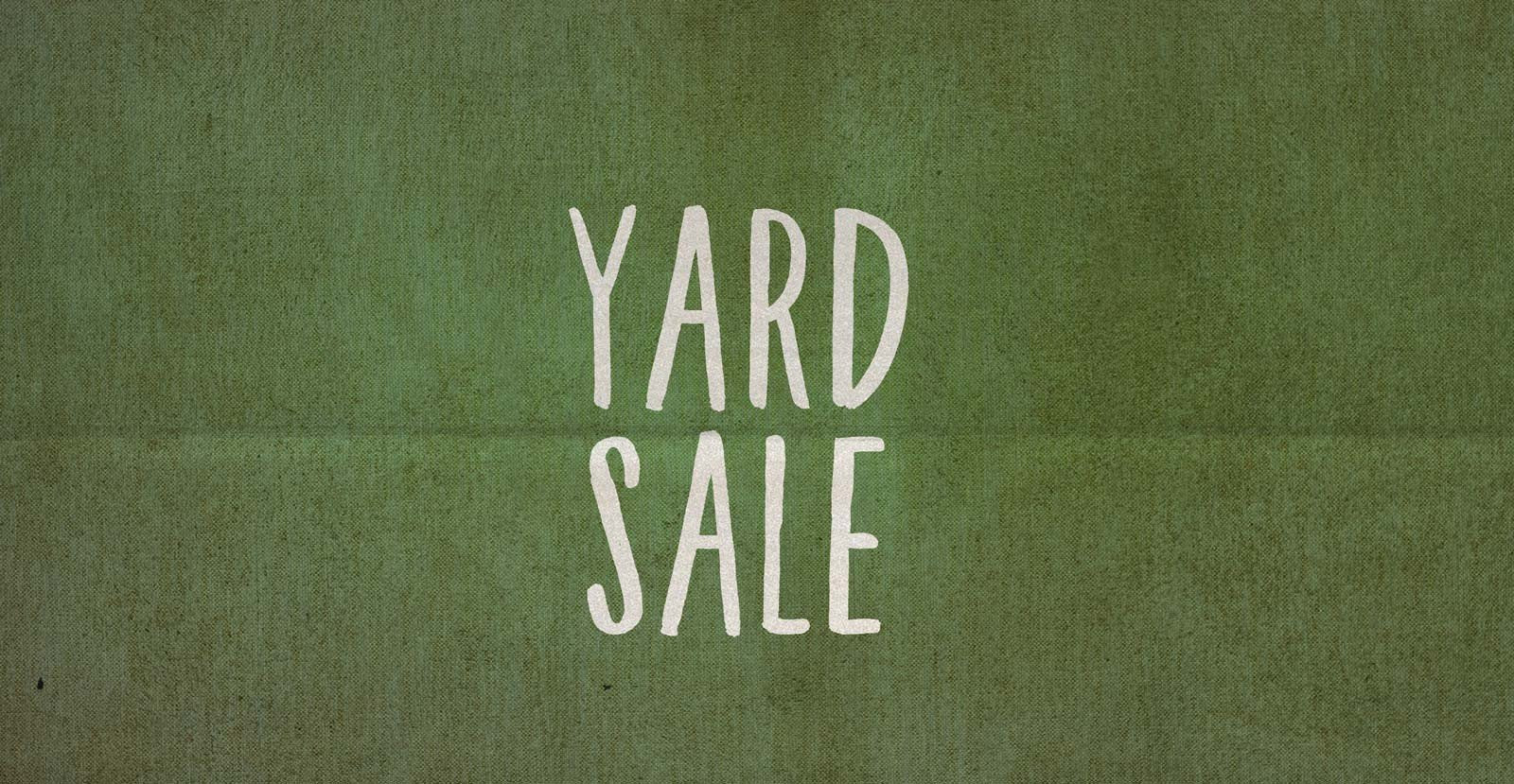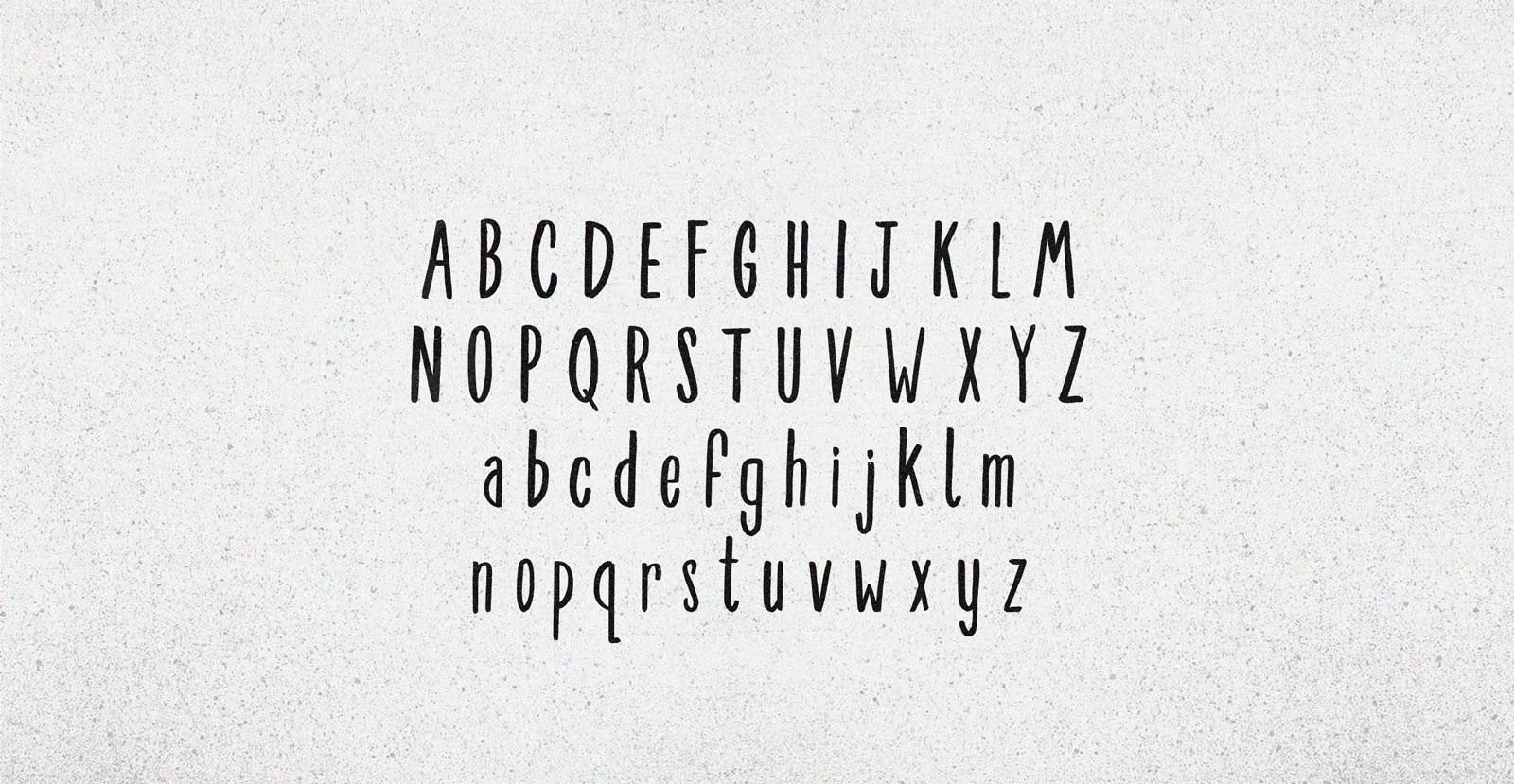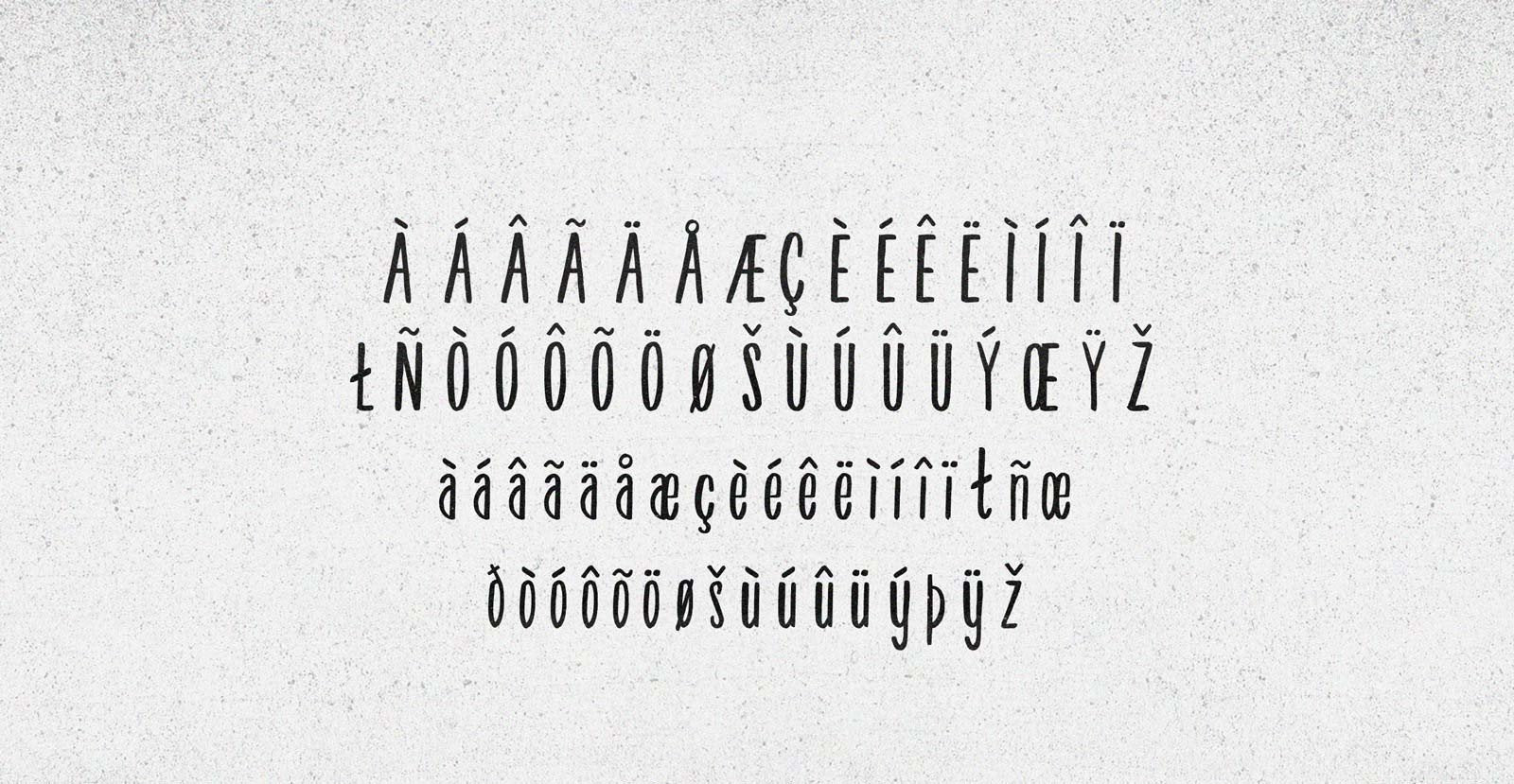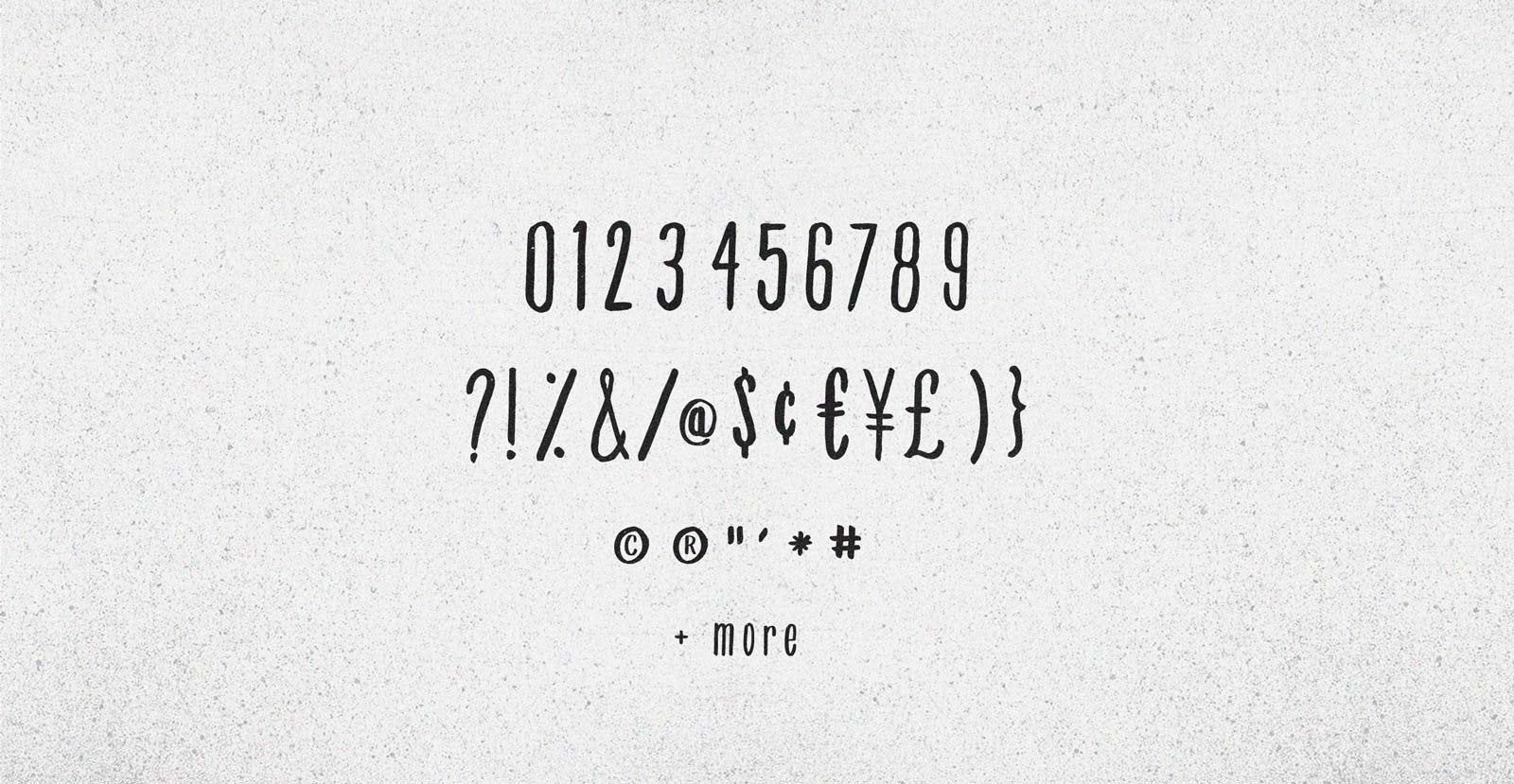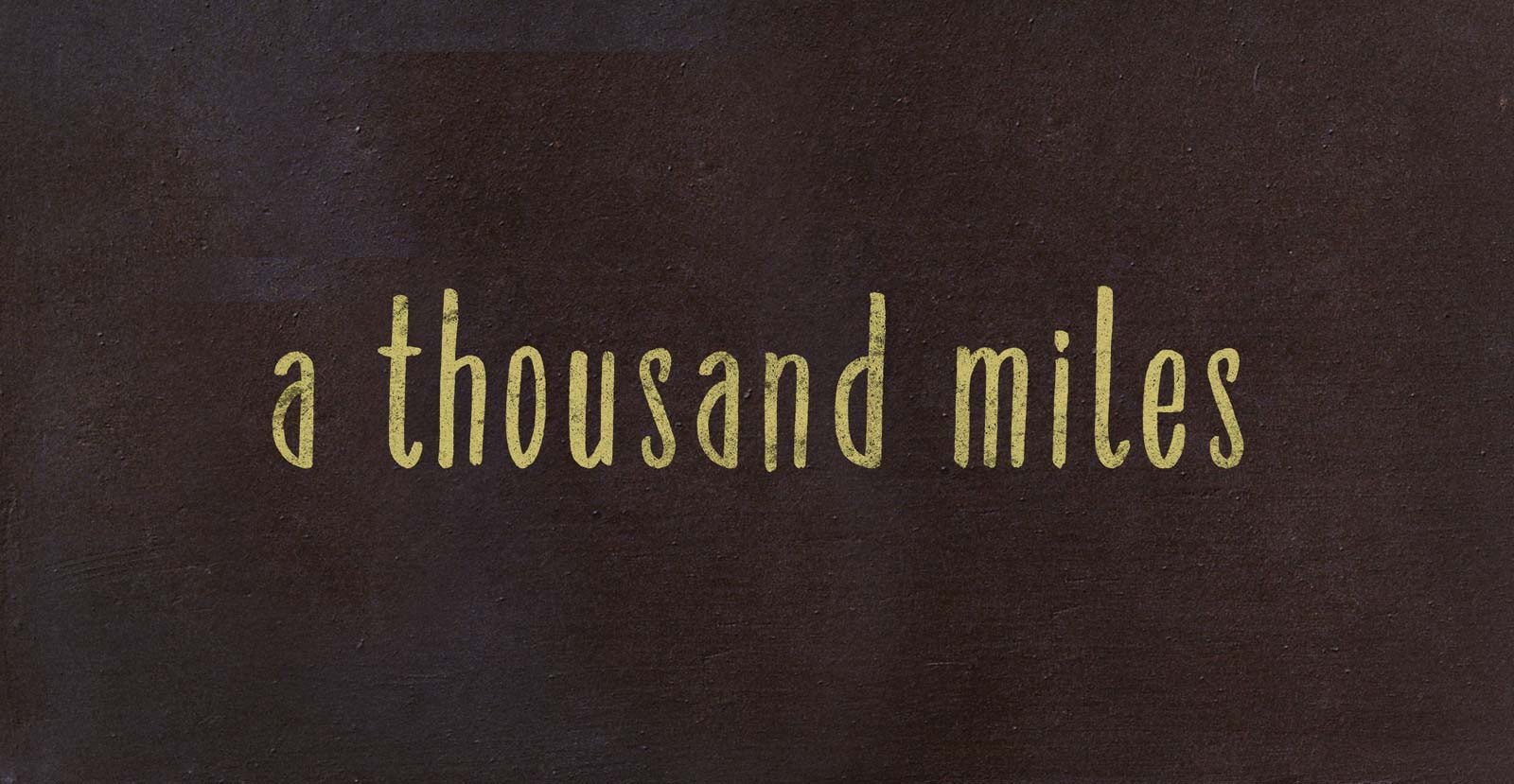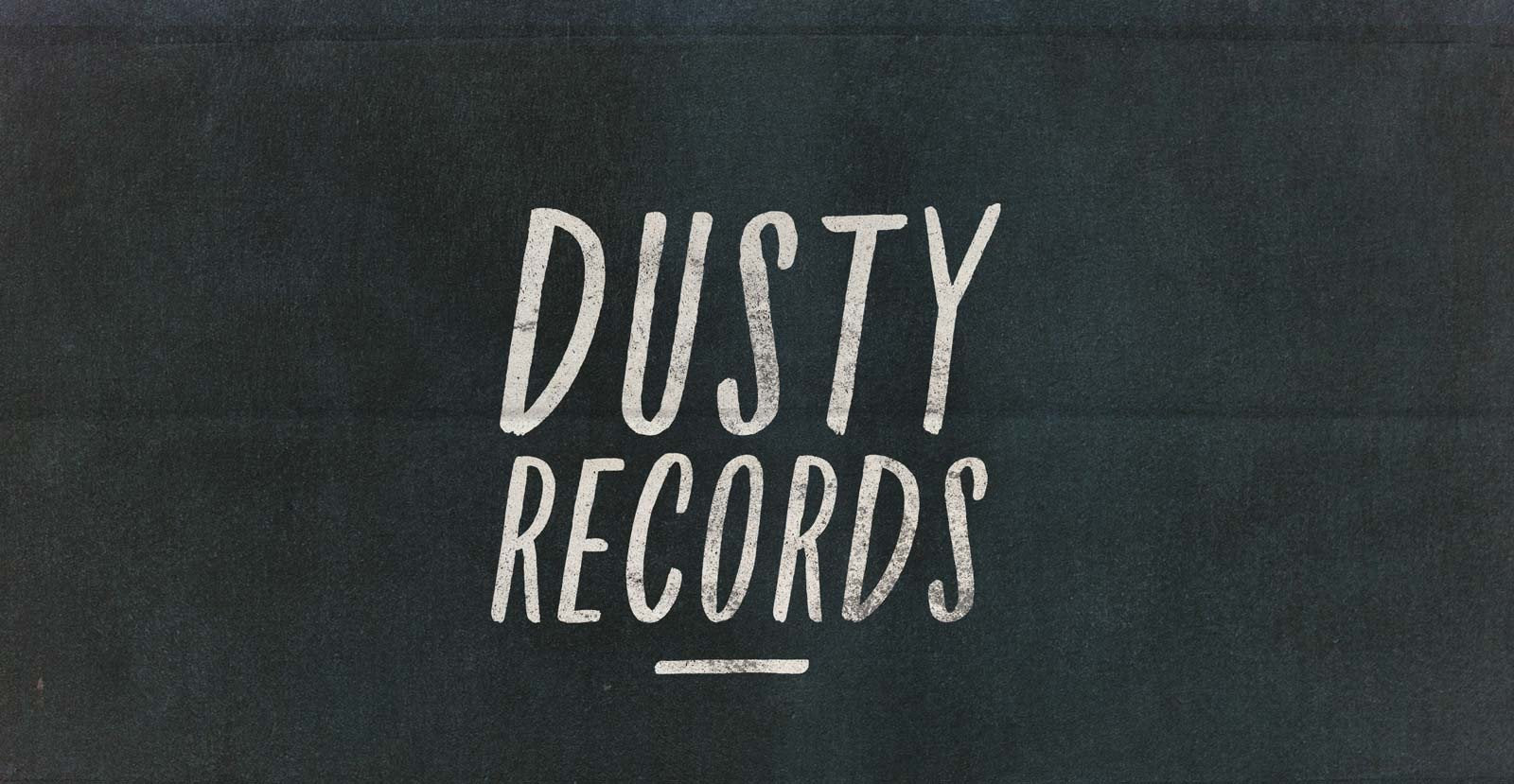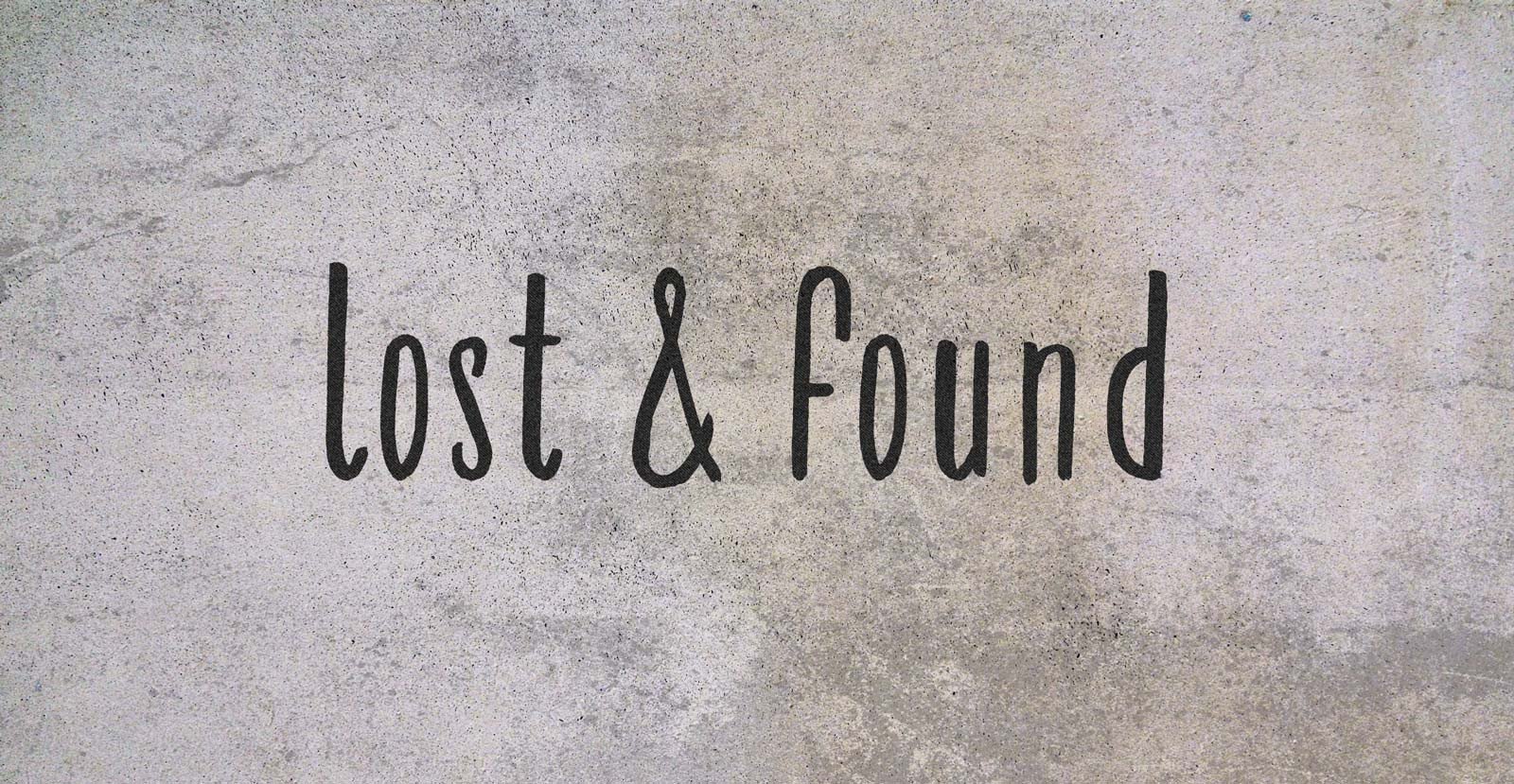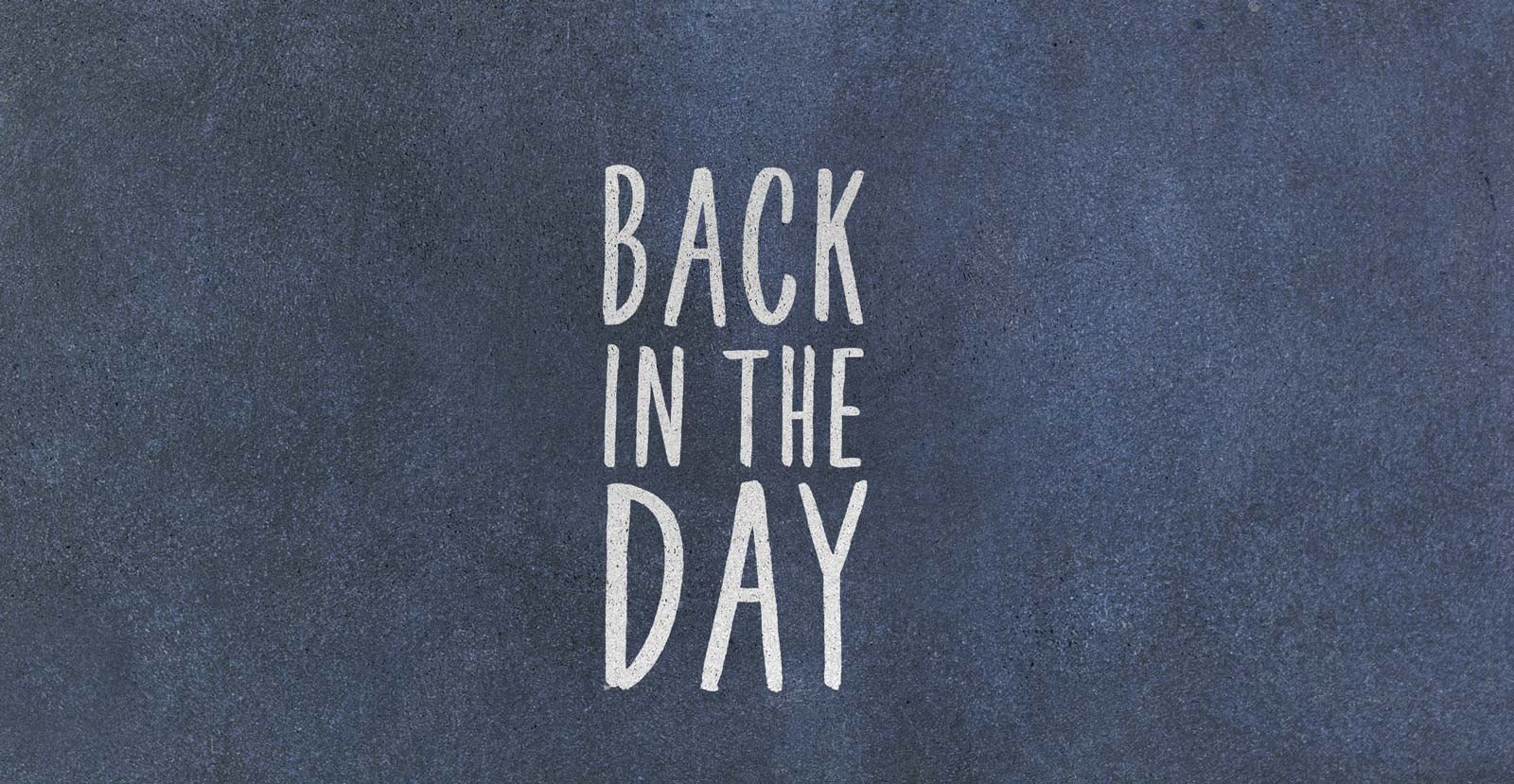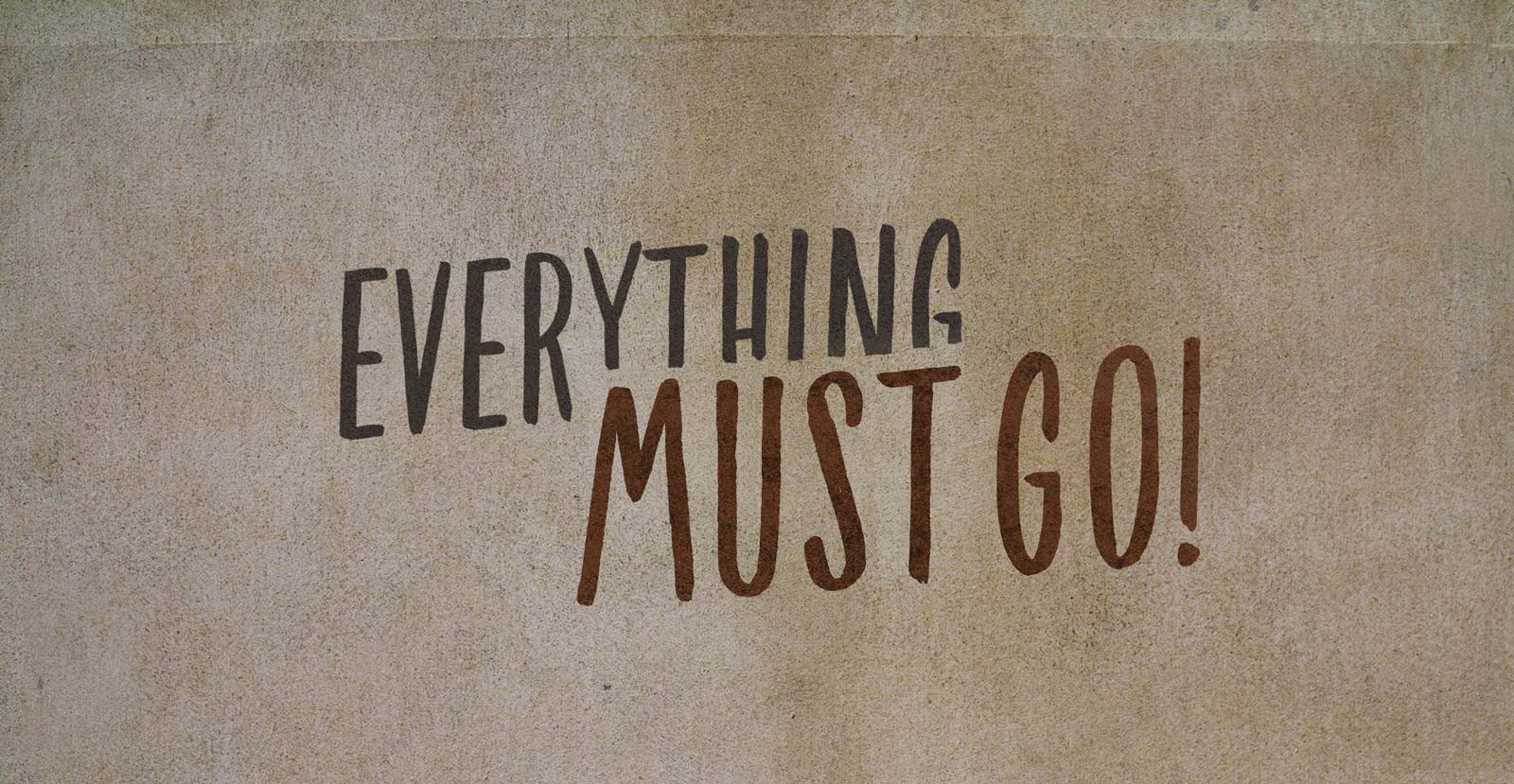
Yard Sale
Last year I put out my old yard sale sign and the city told me it was violating a bylaw for being too ugly of a sign in a public place. Not this year! This year I used BLKBK's 'Yard Sale' and I sold that old chesterfield that's been taking up space in the garage. Sold a bunch of old magazines to boot! Made out like a bandit: sixty-four dollars and forty-five cents! Not too bad for a Saturday afternoon sitting around yelling at neighbour kids for trying to steal my things.